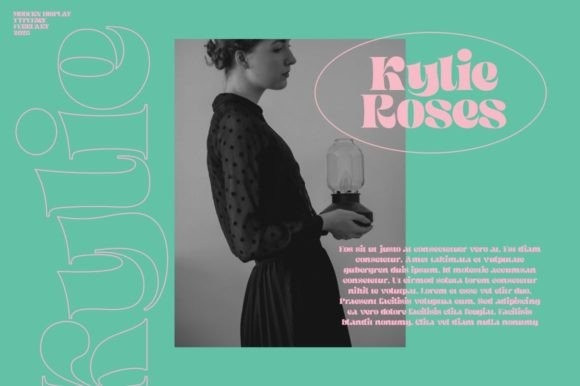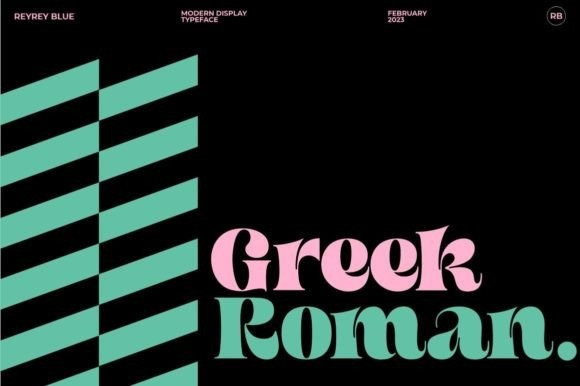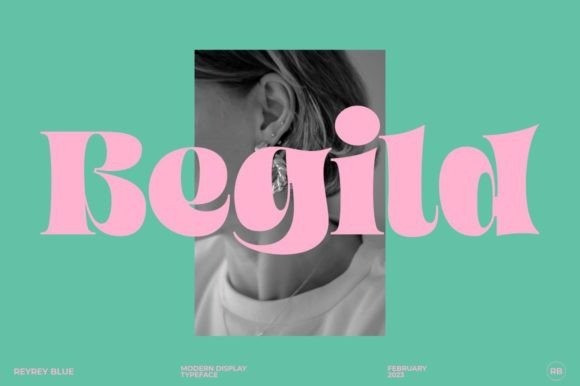
Begild Font
Begild Font by Reyrey Blue 18,065 downloads
Begild Font
Begild Serif Font . It’s bold, fun, and attractive. This modern serif will keep your work fresh with an appealing look.
Begild is perfectly suitable for quotes or body copy, headings, logos, branding, magazines, product packaging, and invitations. Don’t wait to add this groovy font to your collection and explore its uniqueness!